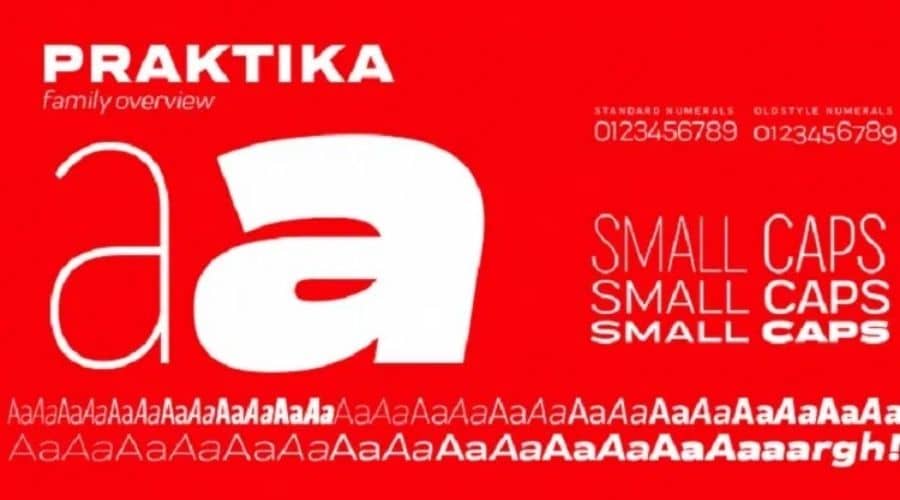
Praktika Font
Praktika Sans Serif is a 40-font versatile superfamily. It’s available in three different widths and weights, ranging from ultra-light to extra bold. It is a conceptual reimagining of the well-known early twentieth-century European grotesque styles employed in road signage — recreated to match the needs of the modern world. I’m honored and delighted to introduce you to a new font family. The Praktika Font Family is now available! Emil Karl Bertell developed Praktika, which Fenotype released.
On August 15, 2017, the Font was made public. Praktika is a Personal Use Only Font. Uppercase, lowercase, Numeric, and some Special and Alternate characters are all included in the fonts. Built-in small capitals, both lined and old-style numbers, in tabular or proportional form, are just a few of the capabilities available in Praktika, which are accessible in any open type savvy software. Numerous different characters, including superscript and subscript numerals. To achieve a unique yet familiar look and feel, the design language of this Font has been kept firmly rough and hefty. The subfamily of this Font is Light. The Font is only available in OTF font type.
The Font was created with any type of professional project in mind. The typeface also looks well in publications, whether it’s in the headlines or the body. The Font looks well in any color scheme. Because it is bold and attractive sans serif, it may be used in any type of heading and subheading.
Praktika is also suitable for branding initiatives, homeware designs, product packaging, and as a classy text overlay on any background image. Praktika Font is great for logos, branding, invites, stationery, wedding designs, logos, business cards, covers, t-shirts, social media posts, and more.
| Style | Sans Serif |
| Designer | Emil Karl Bertell |